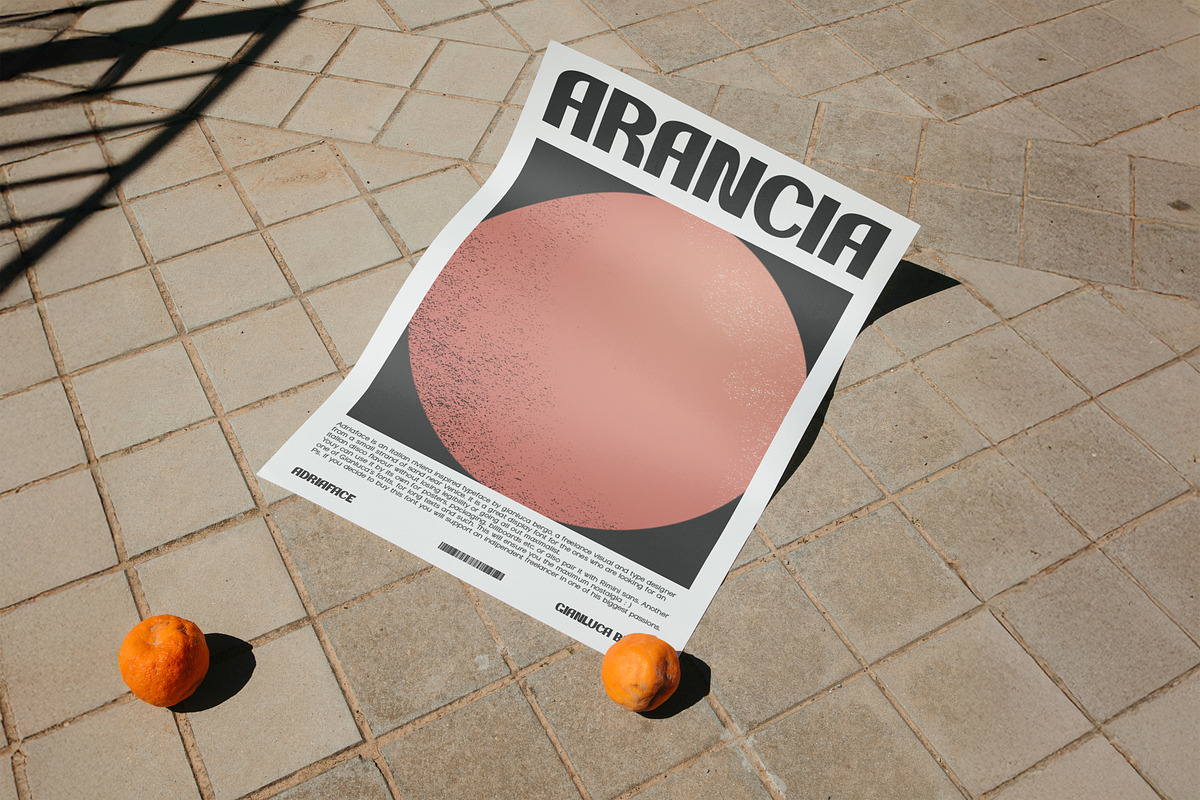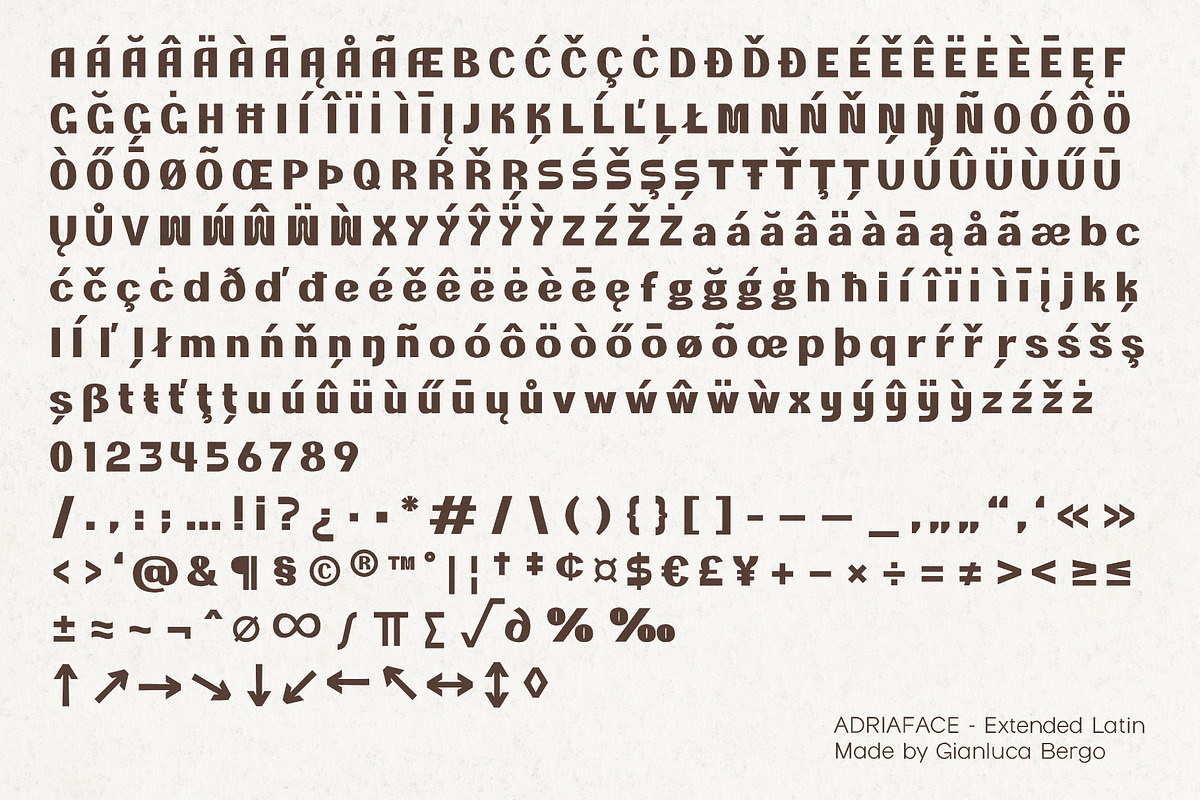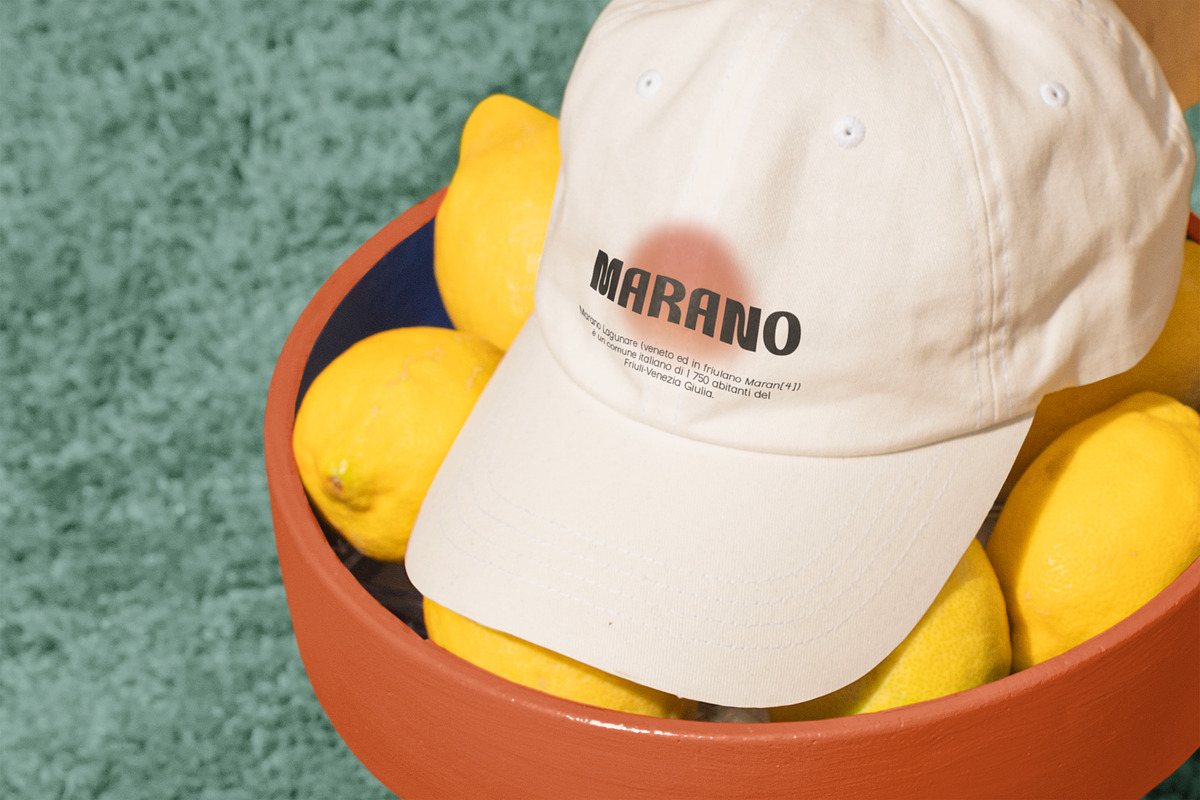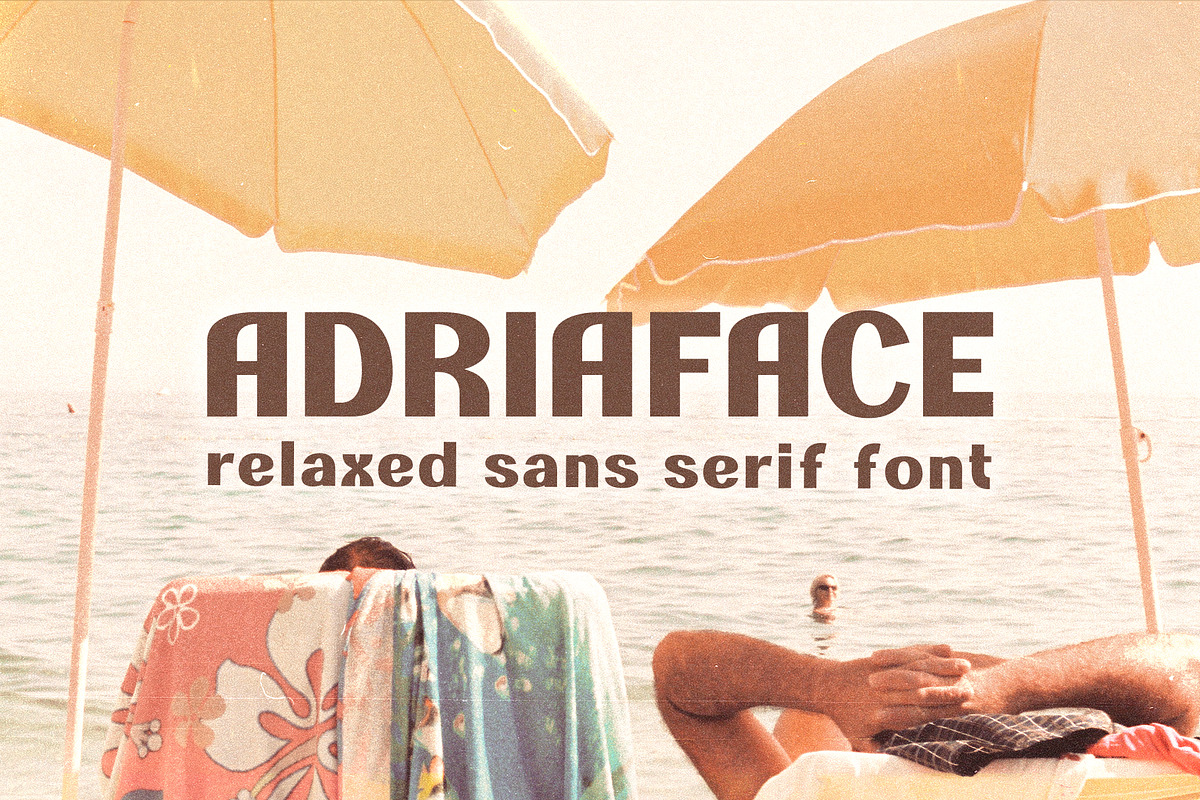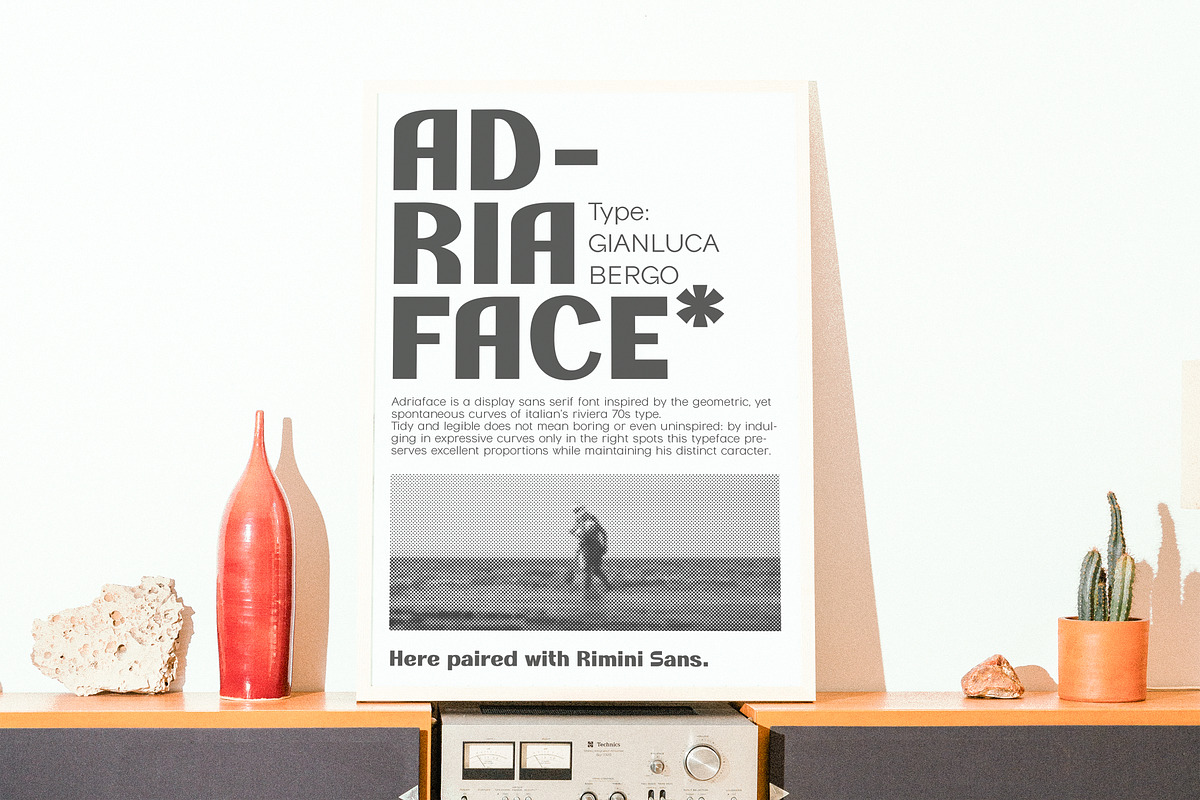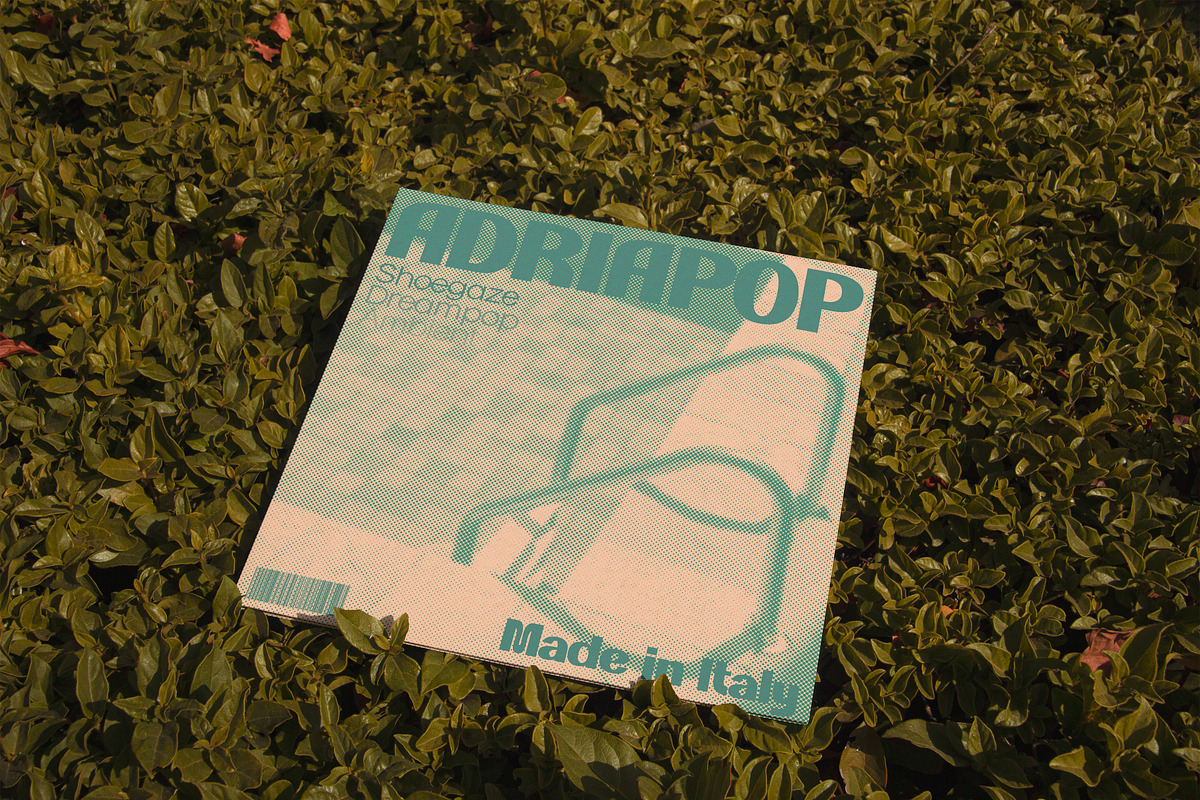
Adriaface - Italian riviera font
Adriaface is a geometric, yet empathic typeface that draws a strong influence from the adriatic riviera. It is the attempt to condense not only the look of hotel signs and flyers in a typeface, but also the smell and feel of the coastal breeze. A font that screams vacation, but in an elegant and always appropriate voice, inspired and distinctive but yet always legible, specific in it’s origin but also really versatile. Simply adriatic stuff made by an adriatic (and really nostalgic) designer.
Key features:
- Extended European Alphabet: This font includes an extensive character set, making it suitable for a wide range of languages and typographic needs across western, south-western and central Europe.
- Extreme legibility: Too many display typefaces think too much about the vibes and too little about legibility. Adriaface is expressive, but lets the key proportions to do their thing for the reader’s eye.